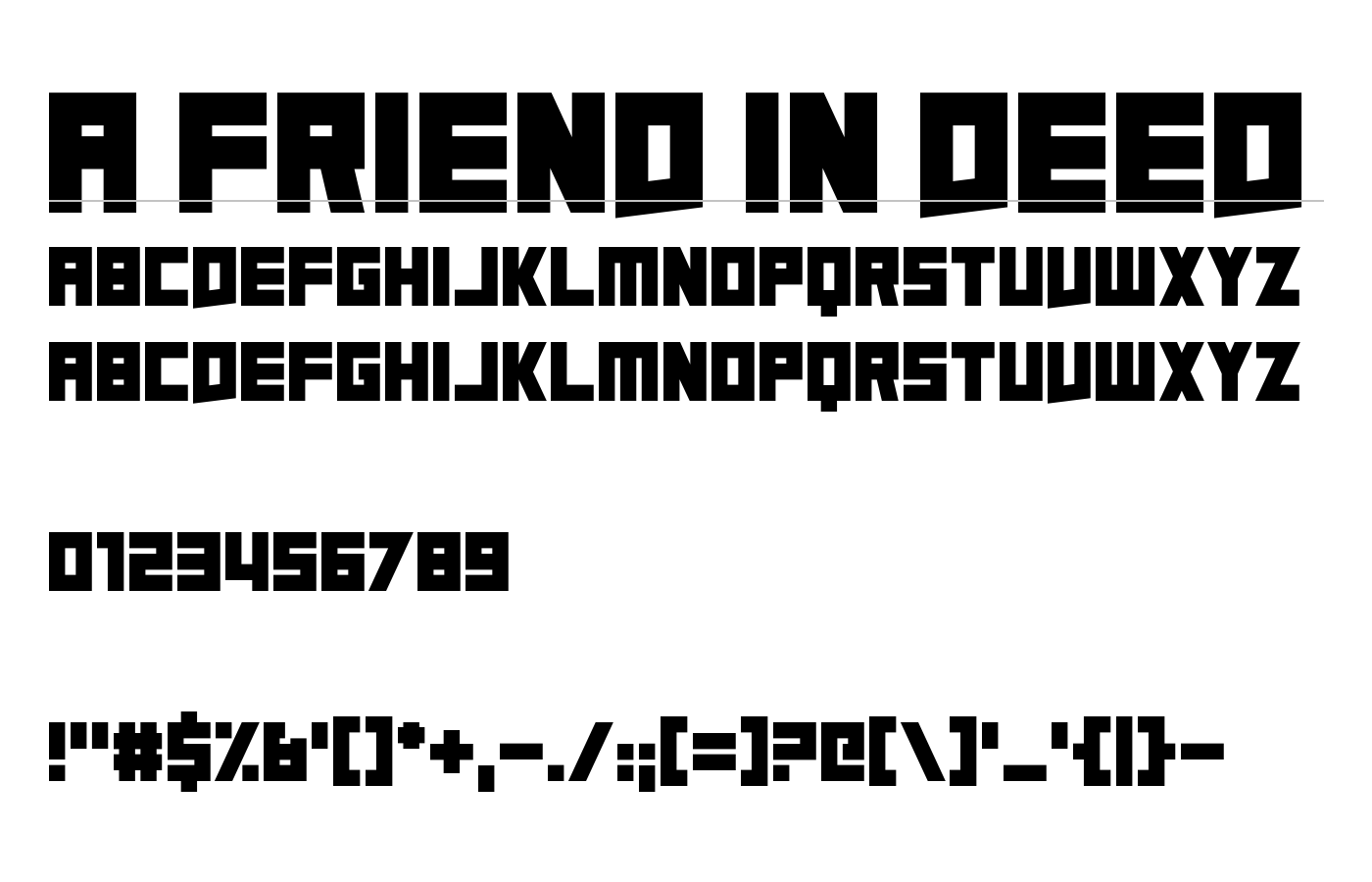
A Friend In Deed is a bold, geometric sans serif font characterized by its strong, blocky letterforms and minimal contrast, giving it a sturdy and modern appearance. Its wide, angular shapes combined with tight spacing create a confident and impactful style, ideal for headlines, posters, and branding where a powerful, contemporary look is desired. This font works especially well for designs that aim to convey strength and stability while maintaining a clean and straightforward aesthetic.
A Friend In Deed Font
About A Friend In Deed Font